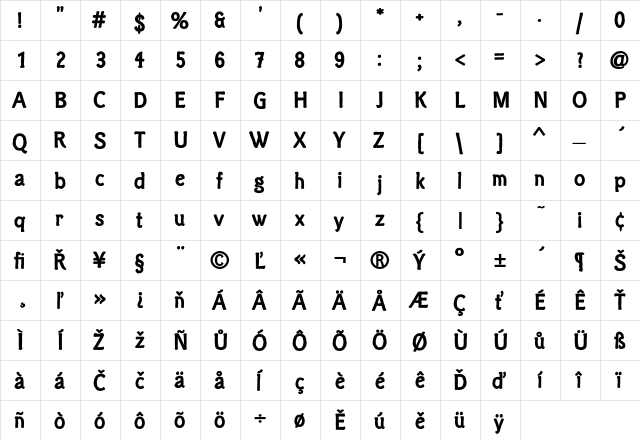
Clichee Bold Font Preview
Clichee Bold
Design Context for Clichee Typeface
Clichee takes a measured approach to typography — its balanced proportions and neutral character make it a reliable workhorse for both digital and print work. Its bold stroke weight gives it real presence on the page.
Pro Tip: Use Clichee in both headline and body roles to test its range before committing to a single application.